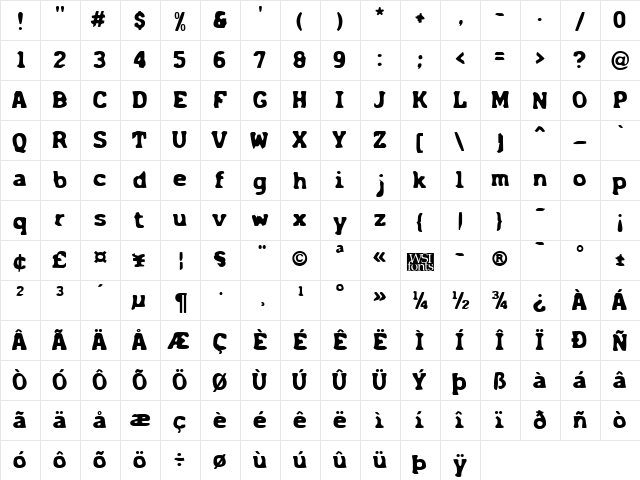
Acck Regular
Design Context for Acck Typeface
Acck offers clean, dependable letterforms without strong stylistic allegiance, making it a practical choice for designers who need flexibility.
Pro Tip: Pair Acck with a font of contrasting weight or personality to build a more expressive typographic hierarchy.